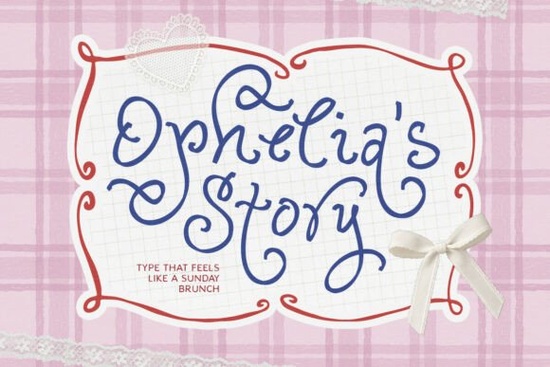
Looking for a font that feels like a warm hug on a cold morning? Ophelia Story Font is perfect for anyone who wants to add a touch of softness and nostalgia to their designs. This script typeface brings a cozy, hand-drawn feel that’s ideal for creative projects ranging from stationery to social media graphics. Whether you're working on a café logo or a romantic book cover, Ophelia’s Story has the charm to make your work stand out.
Designed with a gentle flow and whimsical details, Ophelia Story Font captures the essence of a handwritten note. Its monoline structure gives it a clean yet expressive look, while the looping swashes add a playful personality. The font works especially well for projects that aim to convey warmth, intimacy, or a sense of personal connection. It’s a go-to choice for designers who want to bring a “coquette-aesthetic” to their work without sacrificing readability.
What Makes Ophelia Story Font Unique?
Ophelia Story Font stands out due to its unique blend of elegance and approachability. Unlike more rigid script fonts, this one feels natural and easy to use. The letterforms have a light weight that makes them perfect for both headings and body text. Its flowing style also makes it great for creating visual interest in layouts without overwhelming the reader.
One of the key features of this font is its ability to evoke a sense of nostalgia. The hand-drawn elements give it a personal touch, making it ideal for branding that aims to feel authentic and heartfelt. Whether you’re designing for a boutique, a small business, or a creative project, Ophelia’s Story can help you create a cohesive and inviting visual identity.
Best Uses for Ophelia Story Font
This font is versatile enough to work in a variety of design contexts. For example, it’s a popular choice for independent café branding because it adds a friendly, welcoming vibe. It also pairs well with other fonts in a design system, making it easy to use in multi-layered layouts. If you’re looking to create something that feels personal and artistic, this is the font to consider.
- Café branding – Adds a warm, inviting feel to logos and menus.
- Boutique stationery – Perfect for wedding invitations, thank-you cards, and custom envelopes.
- Romantic book covers – Brings a dreamy, literary quality to titles and subtitles.
- Social media headers – Creates eye-catching visuals that feel soft and elegant.
Where to Use Ophelia Story Font
Ophelia Story Font is particularly well-suited for print-on-demand sellers and small businesses looking to create visually appealing products. Its soft, flowing style makes it ideal for items like greeting cards, t-shirts, and mugs. It also works well in digital formats, such as Instagram posts, Pinterest boards, and website headers.
For those who love crafting or DIY projects, this font can add a personal touch to handmade goods. Whether you’re designing a custom sign or creating a printable art piece, Ophelia’s Story offers a level of charm that’s hard to match. It’s also a great option for anyone looking to enhance their branding with a more human and approachable feel.
How to Get the Most Out of Ophelia Story Font
To make the most of Ophelia Story Font, consider experimenting with different weights and sizes. While the regular version is great for headlines, you might find that a lighter version works better for body text. Pairing it with a sans-serif font can also help balance the design and improve readability.
Another tip is to use it in combination with other fonts that share a similar aesthetic. For instance, if you’re using it for a wedding theme, pairing it with a classic serif font can create a timeless and elegant look. Always test the font in different contexts to ensure it meets your design goals.
Whether you’re a designer, a crafter, or a small business owner, Ophelia Story Font offers a unique way to express creativity and personality. Its warm, nostalgic style makes it a valuable addition to any design toolkit.